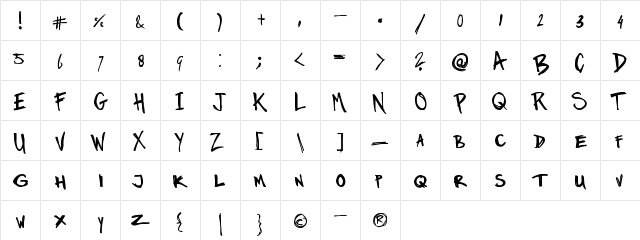
Marker Twins Regular
Design Context for Marker Twins Typeface
Marker Twins is a composed and adaptable typeface that performs quietly and consistently across a wide range of design contexts.